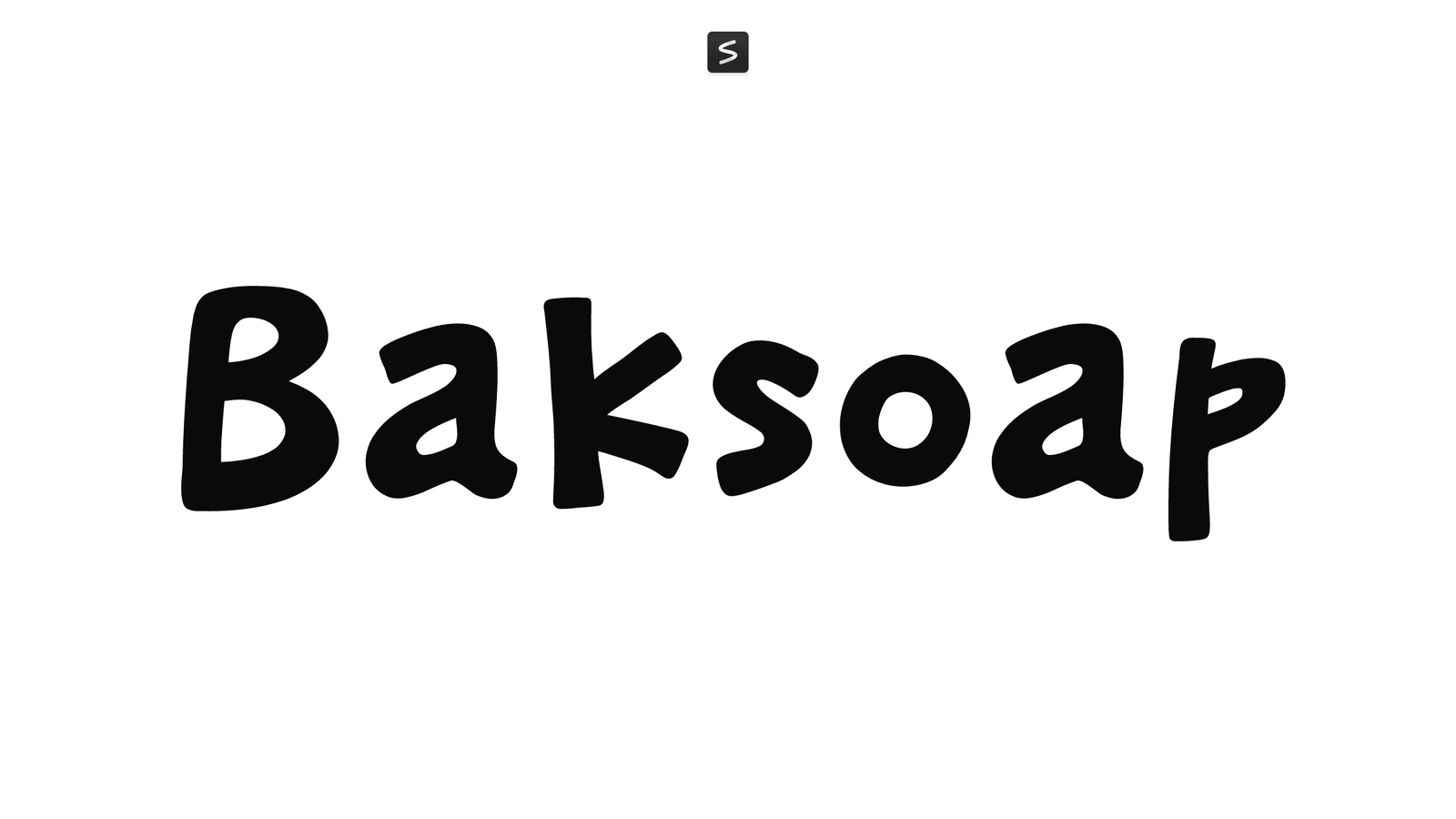
Baksoap is a friendly, hand-drawn display font created by Khurasan™. Its rounded letterforms and loose, casual rhythm feel like writing with a felt-tip marker, giving it an approachable, informal character that works well for projects aimed at younger audiences or anyone seeking warmth in their typography.
The font’s soft edges and relaxed proportions make it well-suited for posters, children’s book covers, greeting cards, packaging, and social media graphics. It’s the kind of typeface that adds personality without demanding attention, making it useful whenever a design needs to feel inviting rather than imposing.